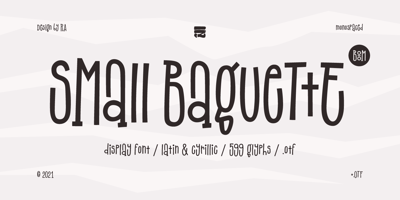
Small Baguette Font Family was designed by Raisa Abramova and published by RA Studio. Small Baguette contains 1 styles and family package options. A great variable font with fun ligatures. Symbols are stretched vertically like a baguette. It is perfect for eye-catching signs, posters, headers, product packaging, book cover, logotype, apparel design and etc.Display fontExtended latin & Cyrillic599 Glyphs